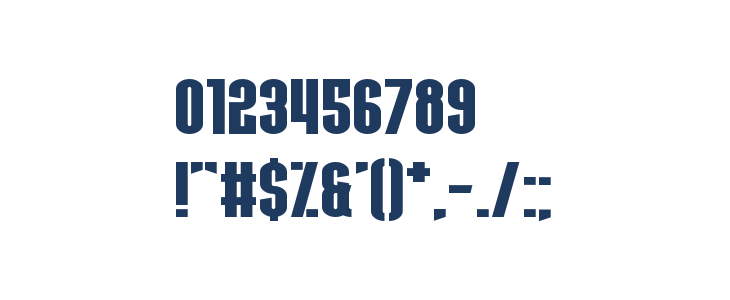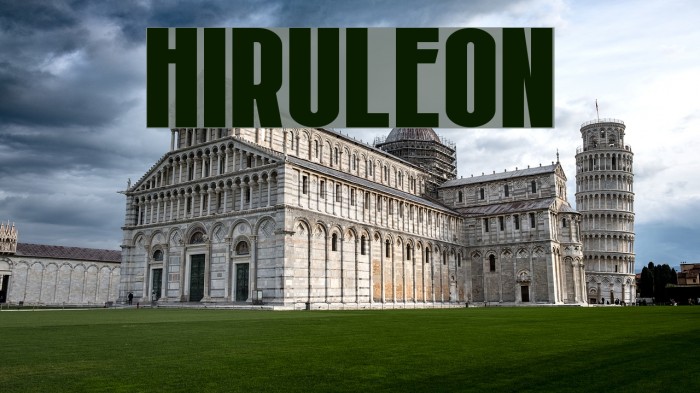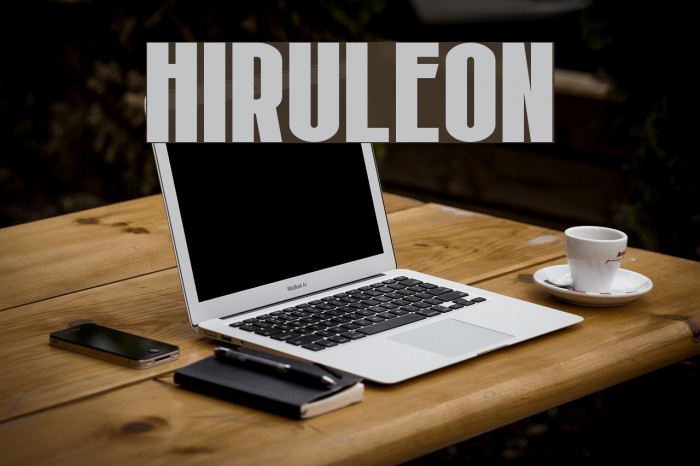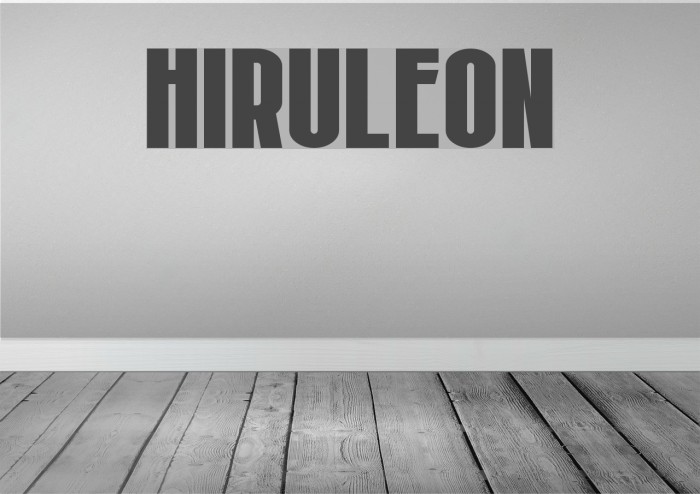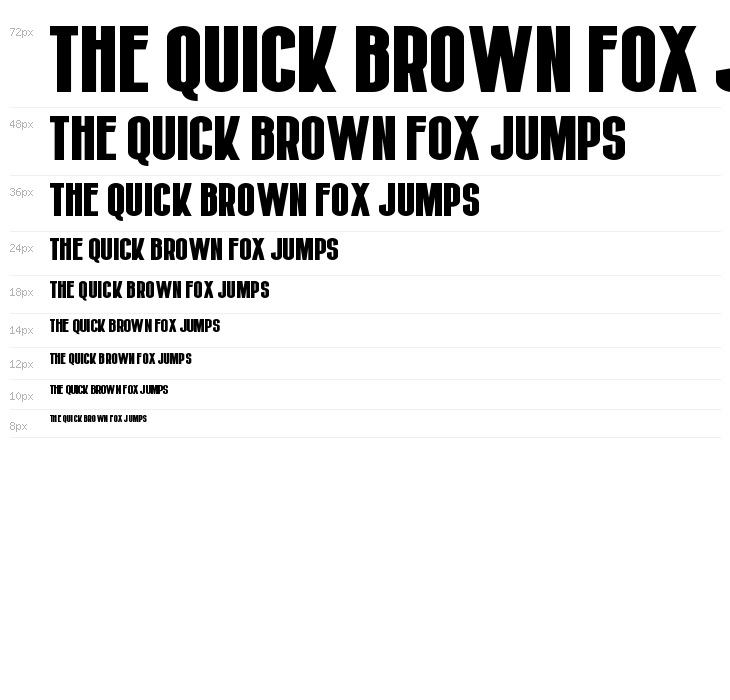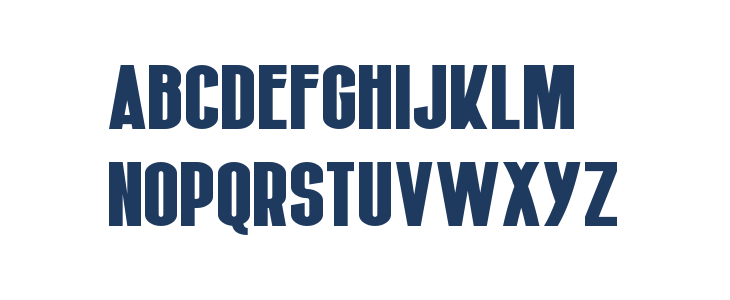
Hiruleon Font
Hiruleon Description
This bold and impactful font features strong, thick strokes that create a commanding presence. The uppercase letters are particularly striking, with a uniform height and width that convey a sense of stability and strength. The numbers and special characters maintain this robust style, ensuring consistency across all uses. The font's design is straightforward yet powerful, making it ideal for attention-grabbing headlines or titles. Its boldness is complemented by a slightly condensed width, which adds to its compact and efficient appearance. The character spacing is tight, enhancing the font's solid and cohesive look.
Proposed ProjectsIdeal for headlines, posters, branding, and any project requiring a strong visual impact.